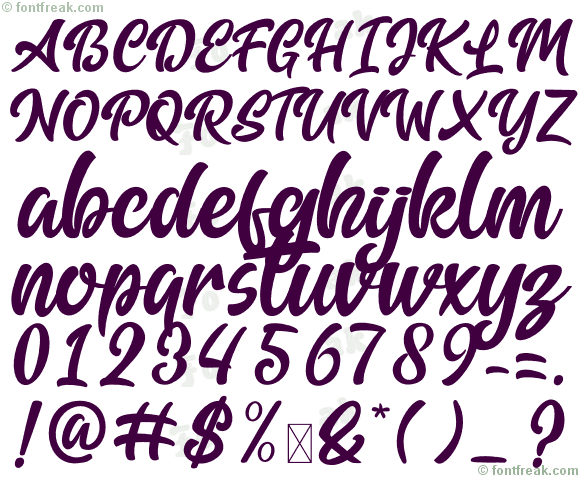
Alpha Monday
About Alpha Monday
The Alpha Monday font by Eknoji Studio is a captivating display typeface that seamlessly blends modern elegance with a touch of whimsy. This font, categorized as a script style, boasts a fluid and dynamic character set that exudes creativity and charm. The strokes are crafted with a moderate weight, providing a balanced contrast that enhances readability without sacrificing style. The generous spacing between letters contributes to its airy feel, making it suitable for various applications.
Alpha Monday is perfect for several specific use cases, including wedding invitations where its graceful curves can add a touch of romance, and movie posters that require an eye-catching title that stands out. Additionally, it works beautifully for restaurant menus, offering a friendly yet sophisticated vibe that can entice diners. Content creators will find it ideal for social media graphics, where capturing attention quickly is essential. Graphic designers can also leverage this font to add a unique flair to branding projects, ensuring their designs stand out in a crowded marketplace.
The target audience for the Alpha Monday font is broad, encompassing graphic designers, small business owners, and content creators who seek a distinctive typeface that conveys personality and warmth. This font's versatility allows it to adapt to various styles and themes, making it a valuable addition to any designer's toolkit.
What truly sets the Alpha Monday font apart is its ability to evoke emotion while maintaining clarity. Its stylish design makes it not only visually appealing but also functional across a wide range of applications. For those looking to elevate their design projects, the Alpha Monday font free download is an opportunity not to be missed, inviting creativity and artistic expression into every piece it adorns.